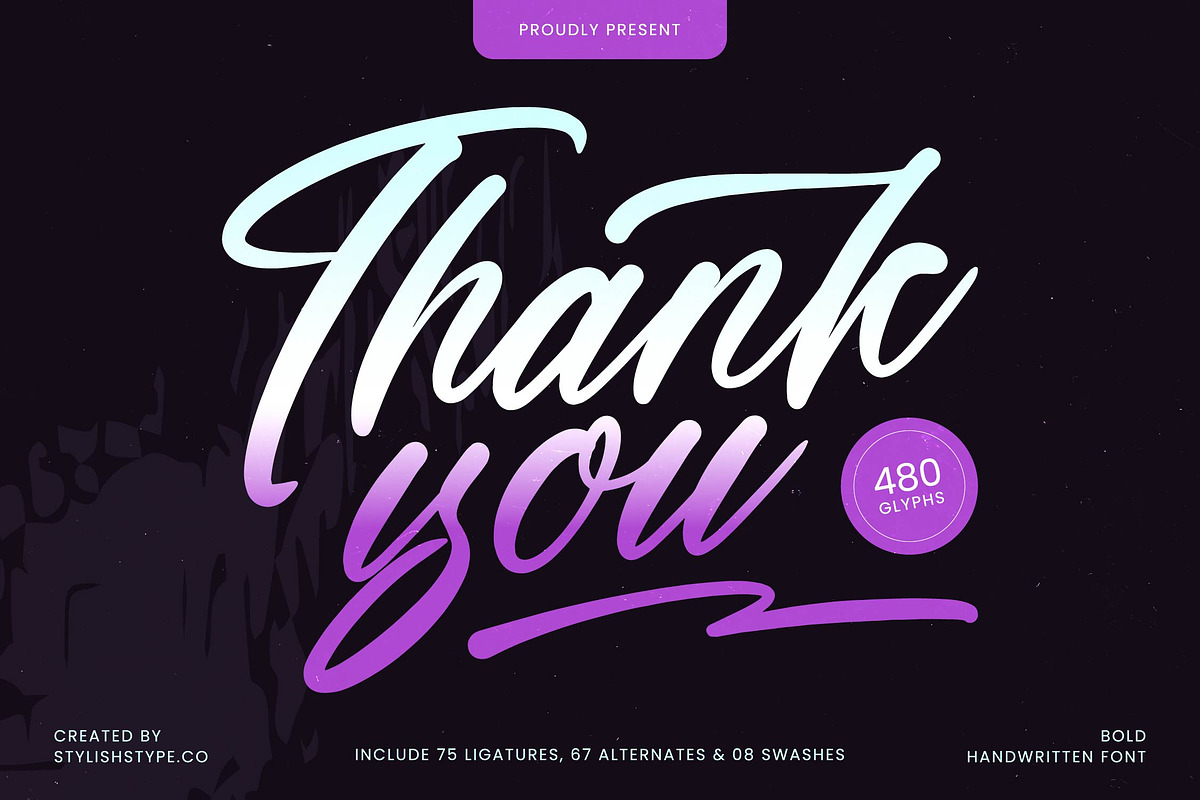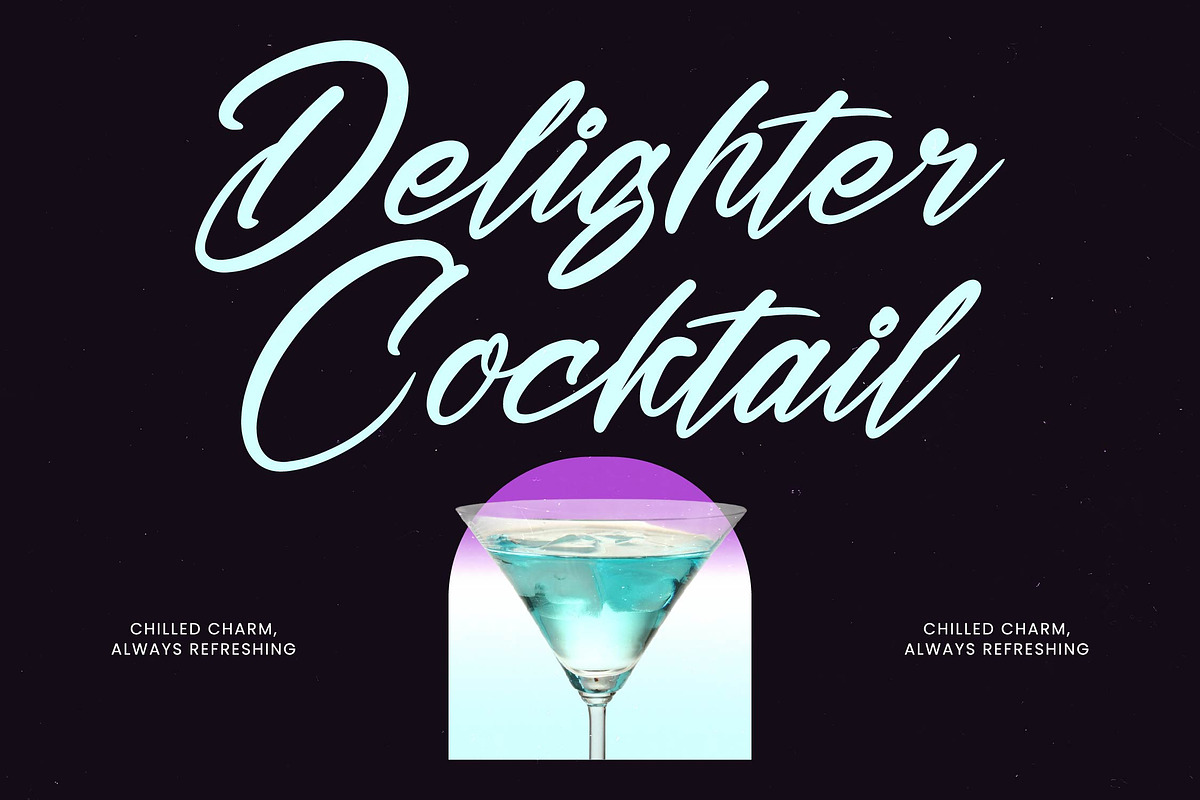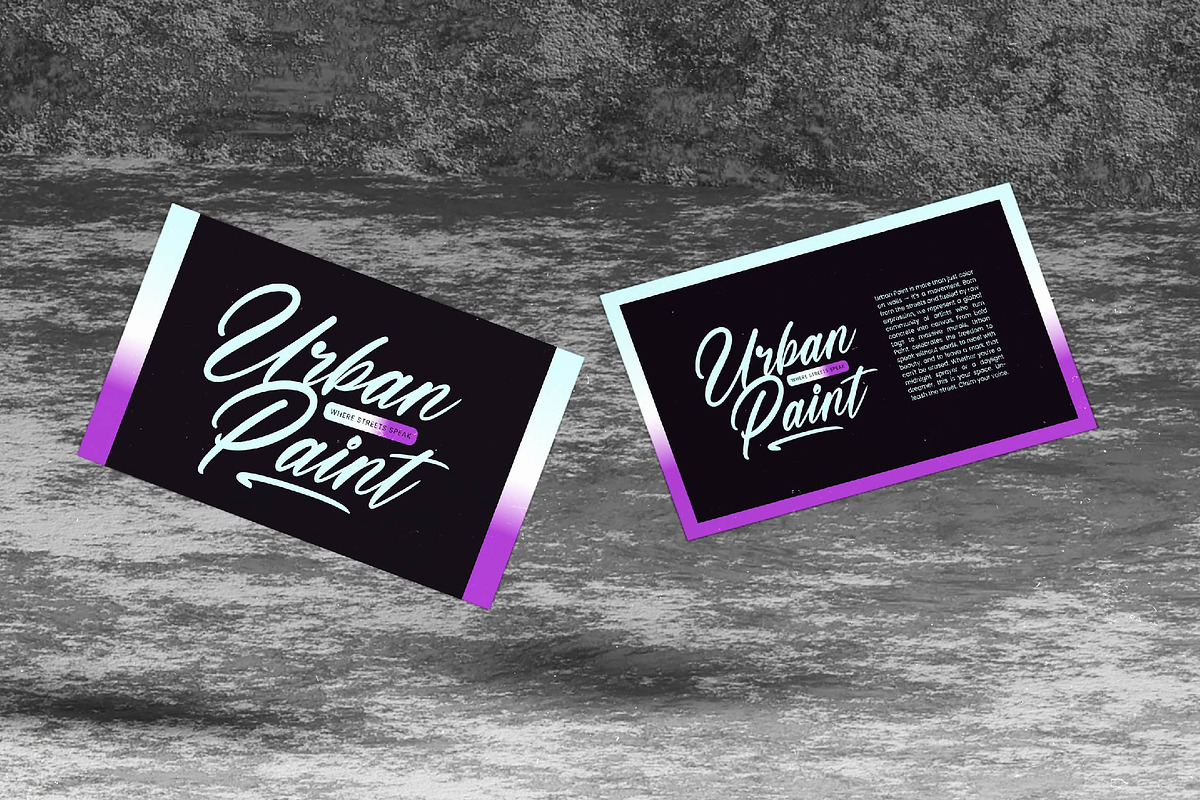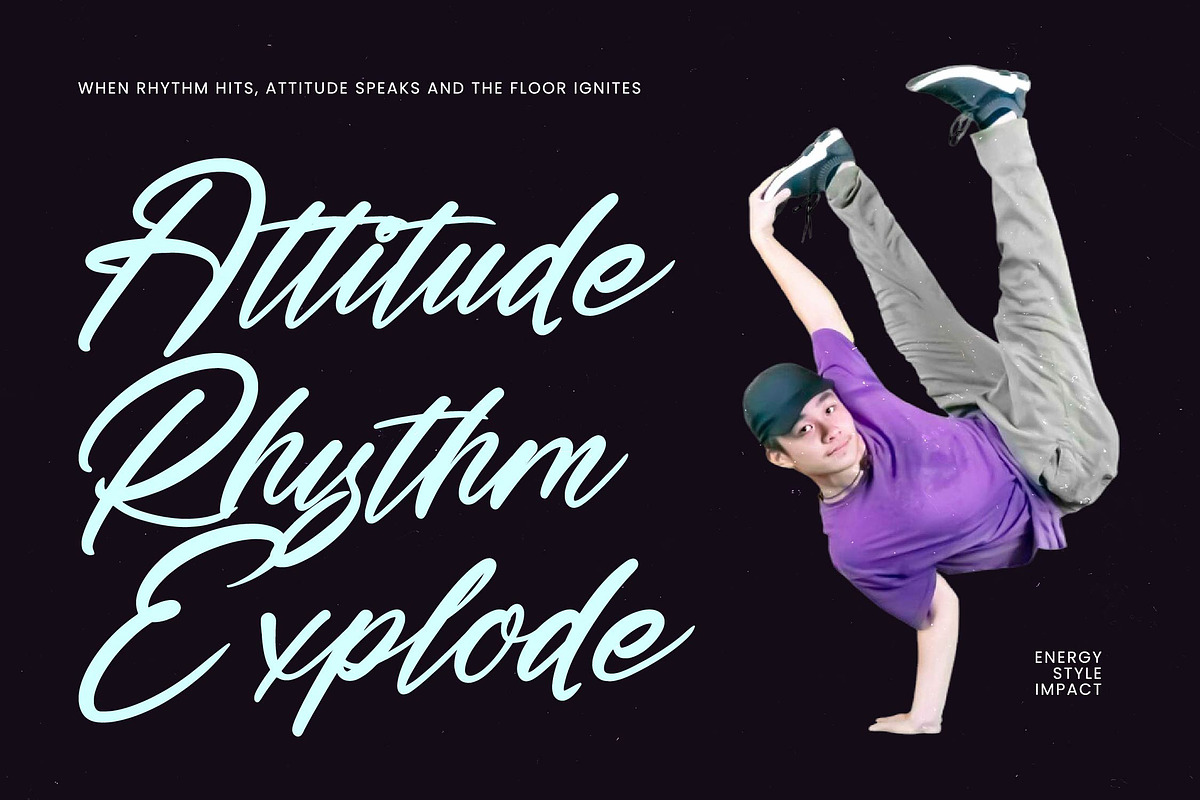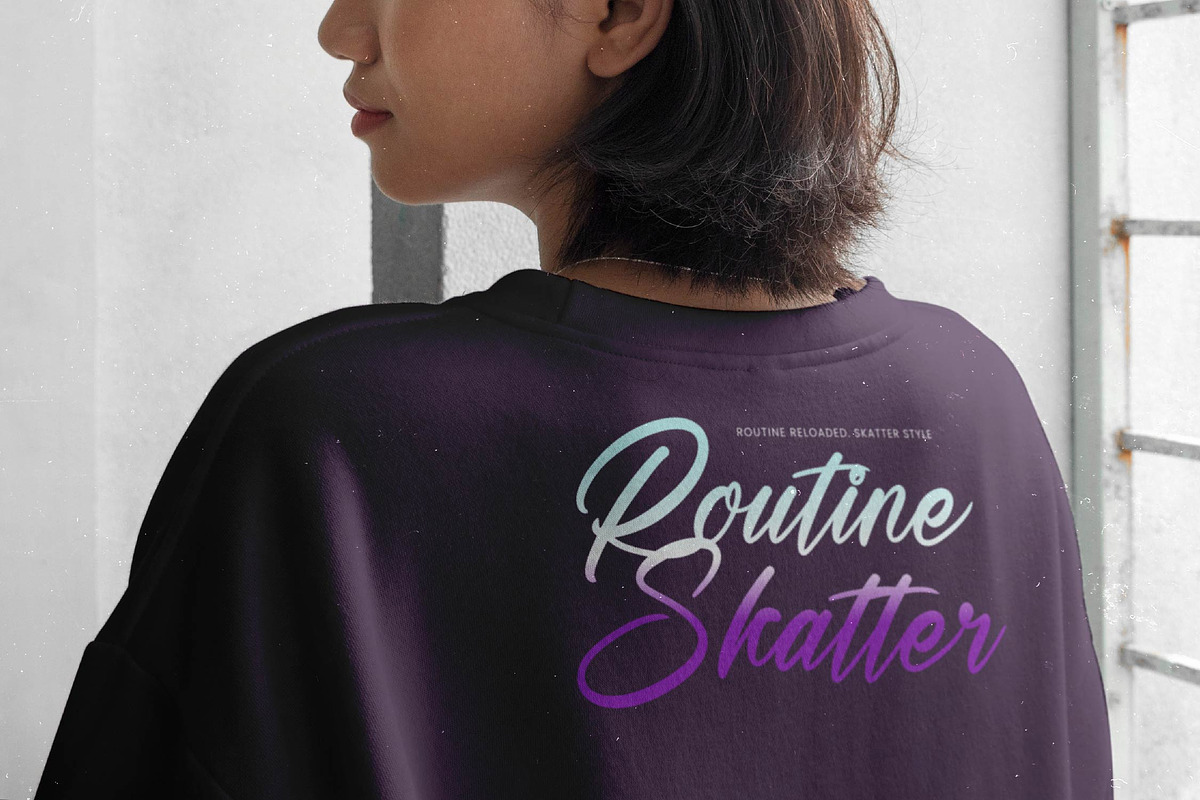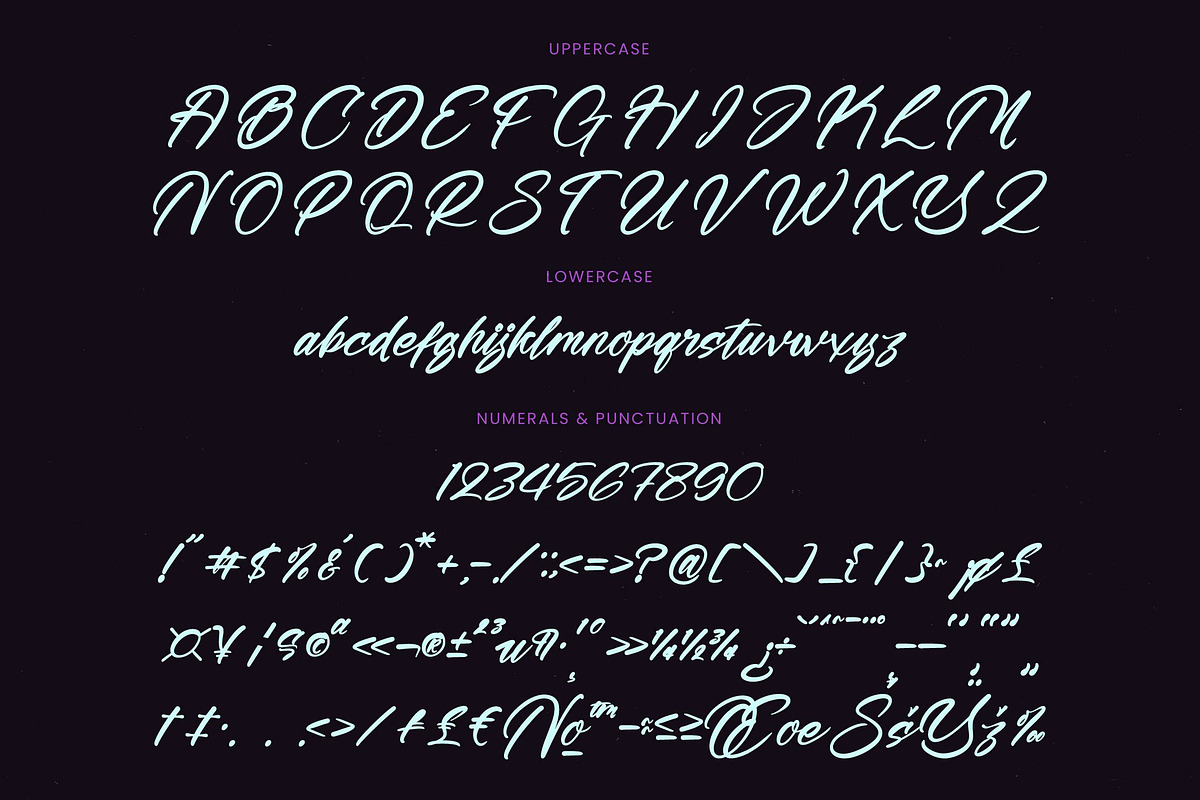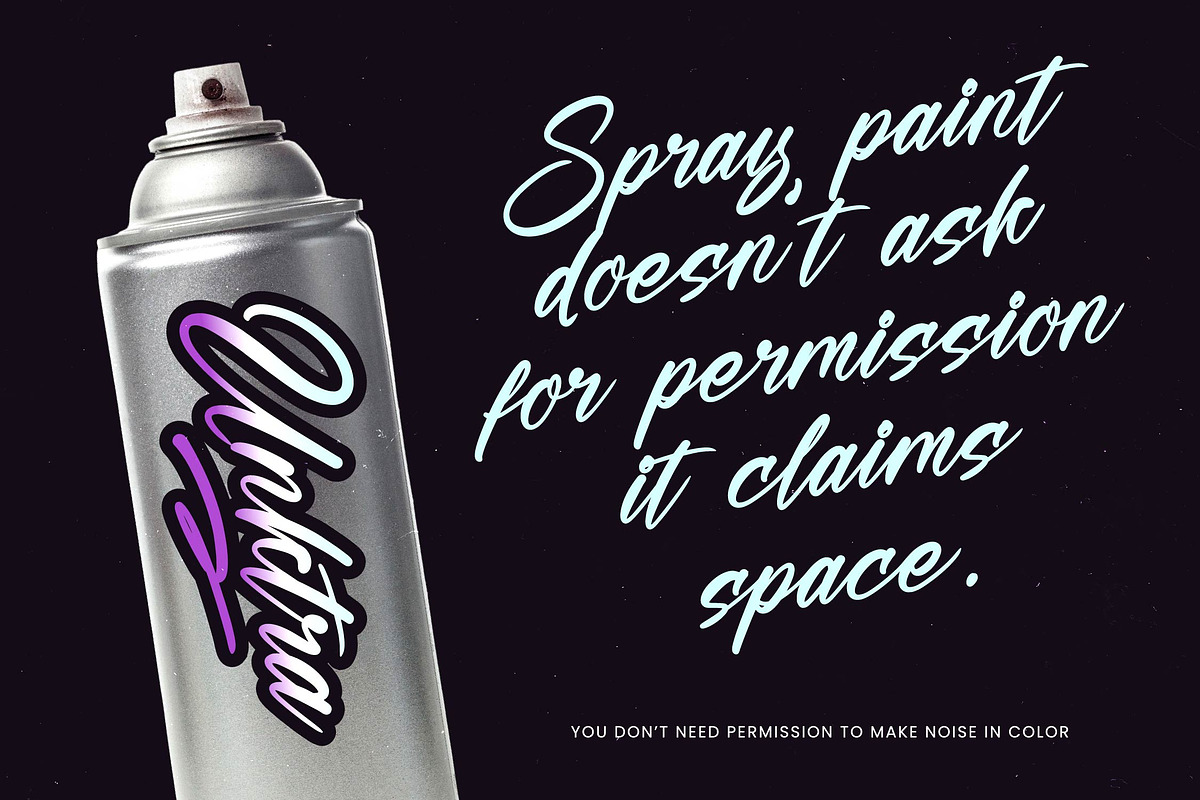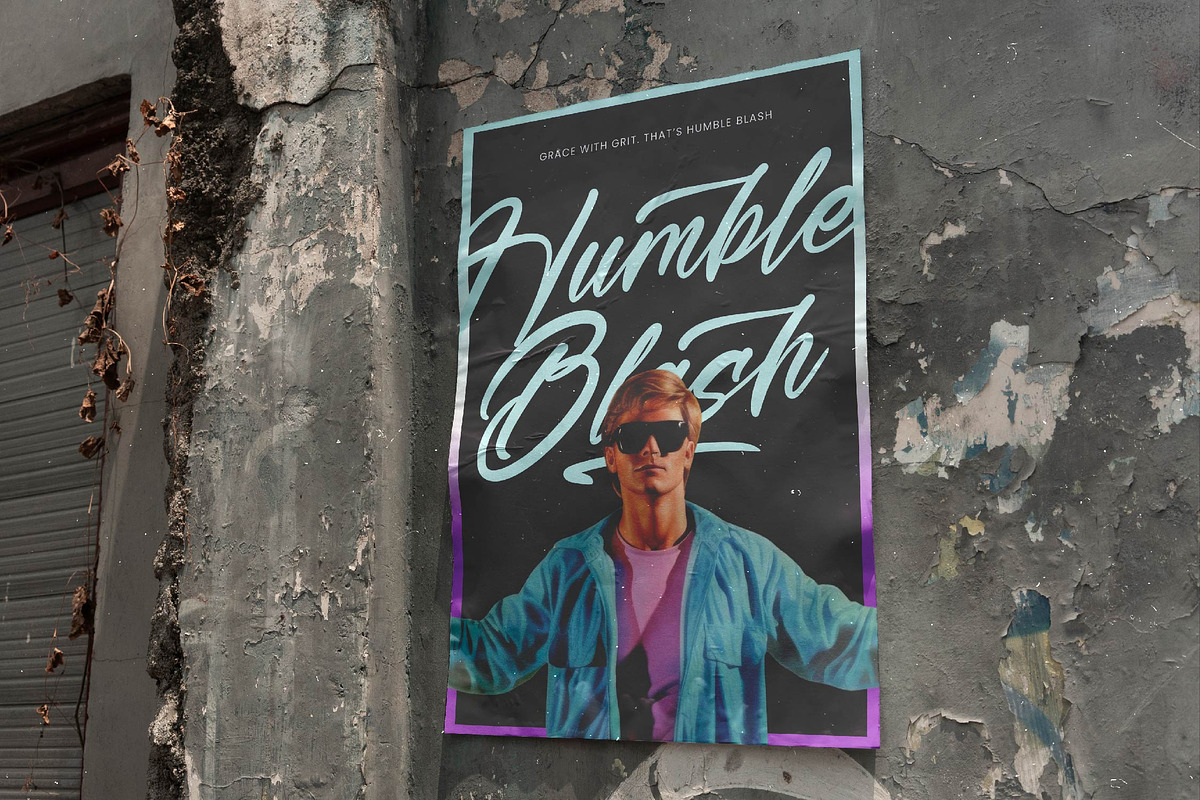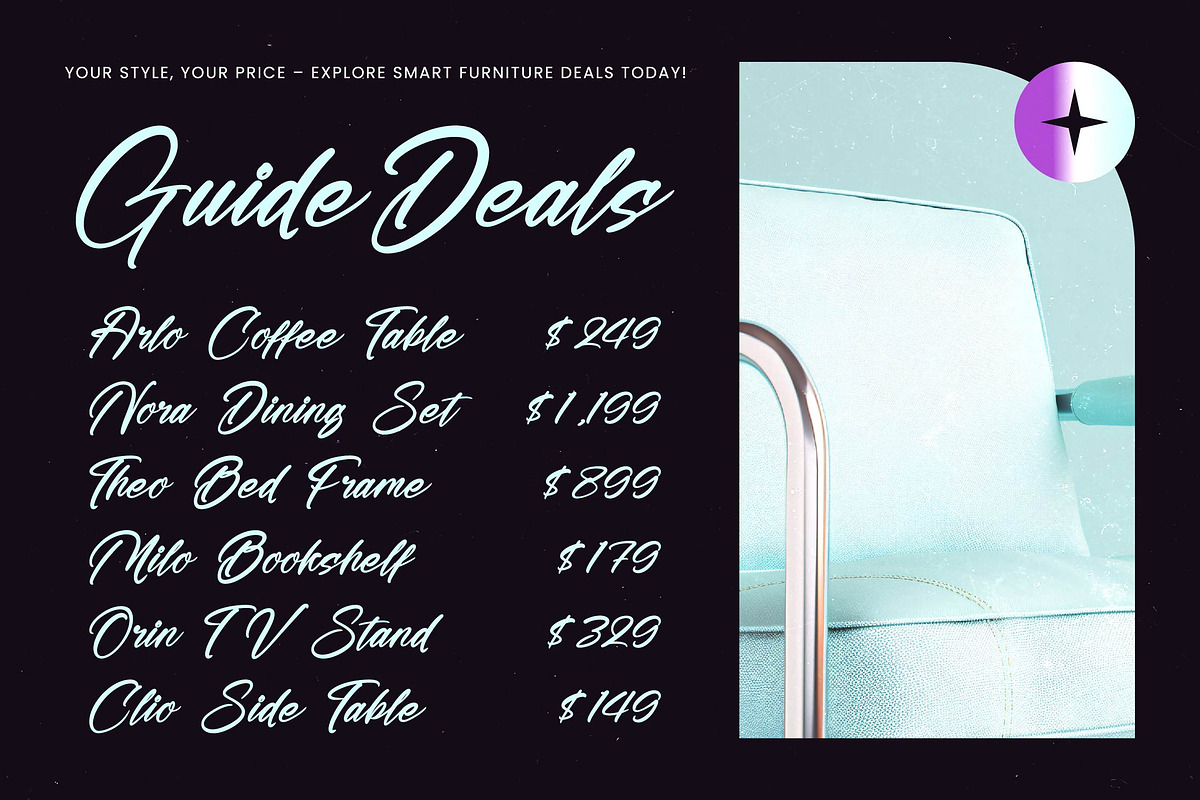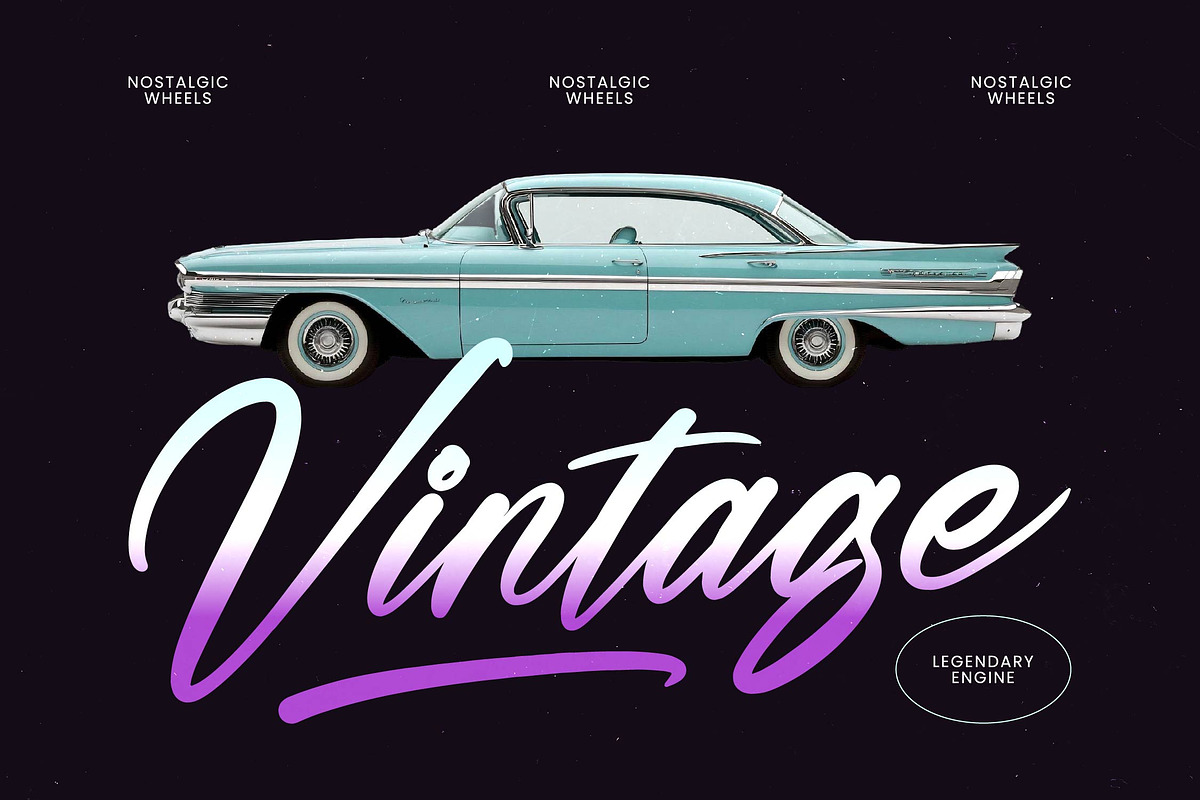
Humble Blash Bold Handwritten Font
Humble Blash - Bold Handwritten Font , from Stylishtype.Co , Suitable for any projects such as: logos, branding projects, homeware designs, product packaging, mugs, quotes, posters, shopping bags, t-shirts, book covers, name card, invitation cards, greeting cards, label, photography, watermark, special events, and all your other luxury and beautiful projects that need a Luxury Script taste.
- 75 Ligature 67 Alternates & 08Swashes